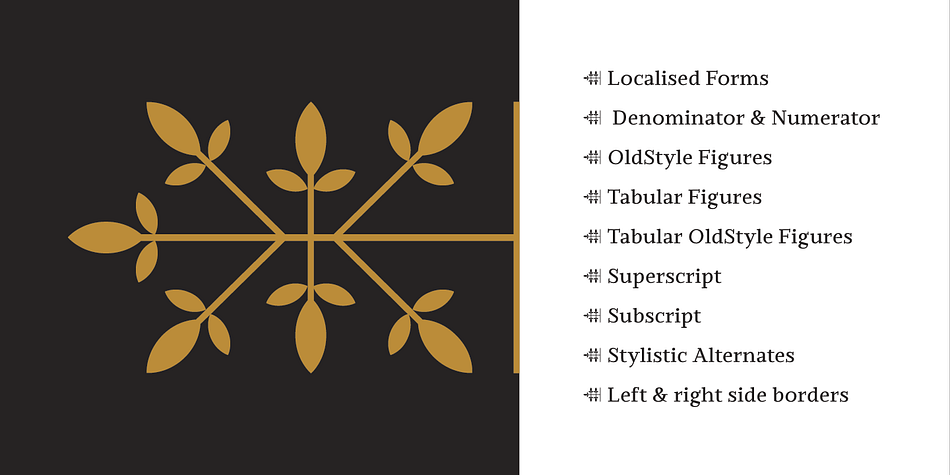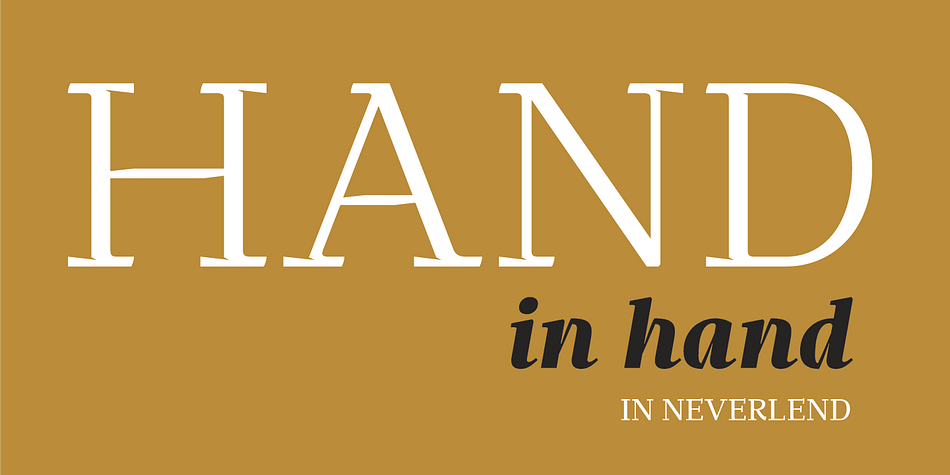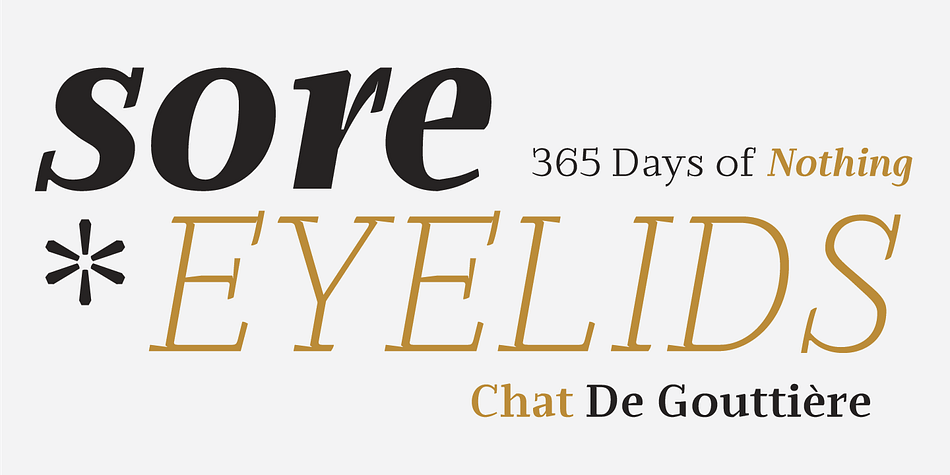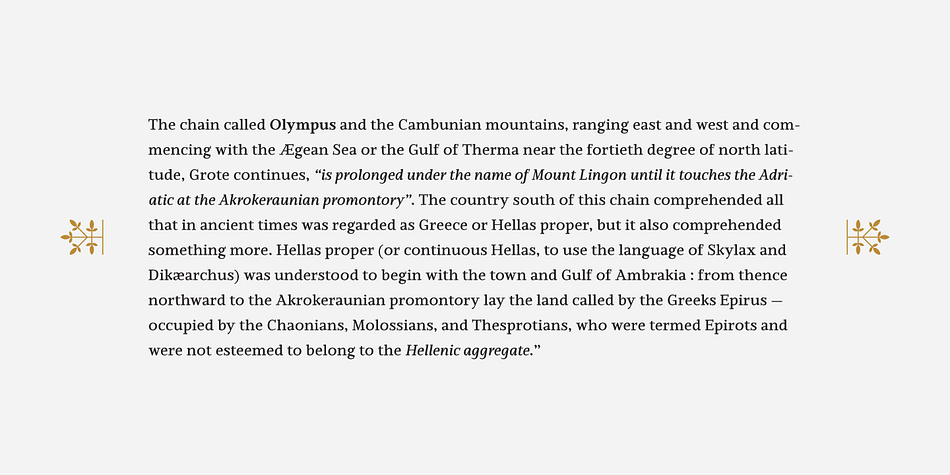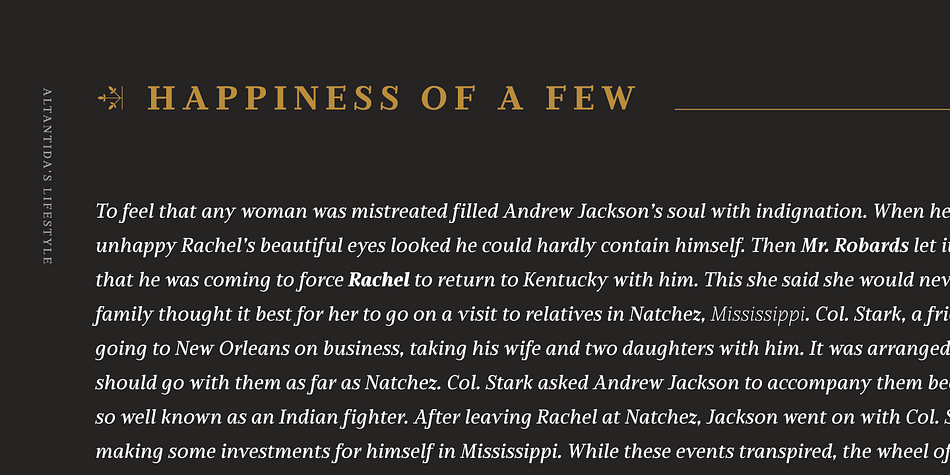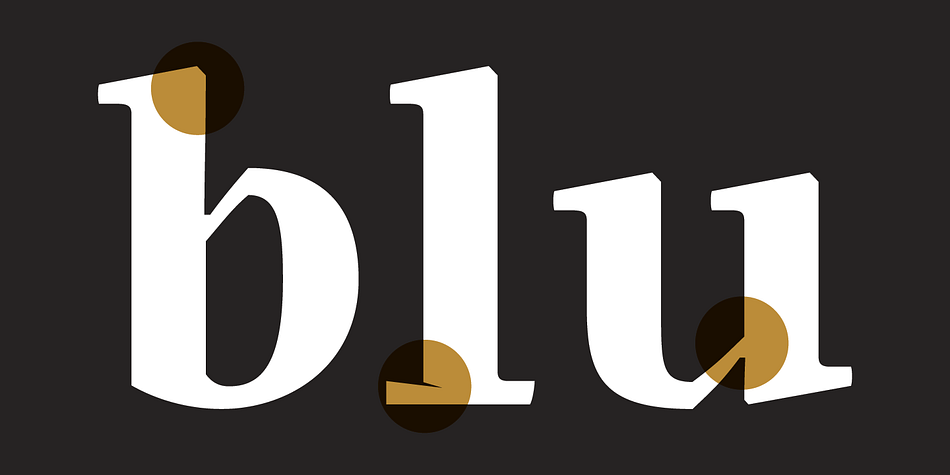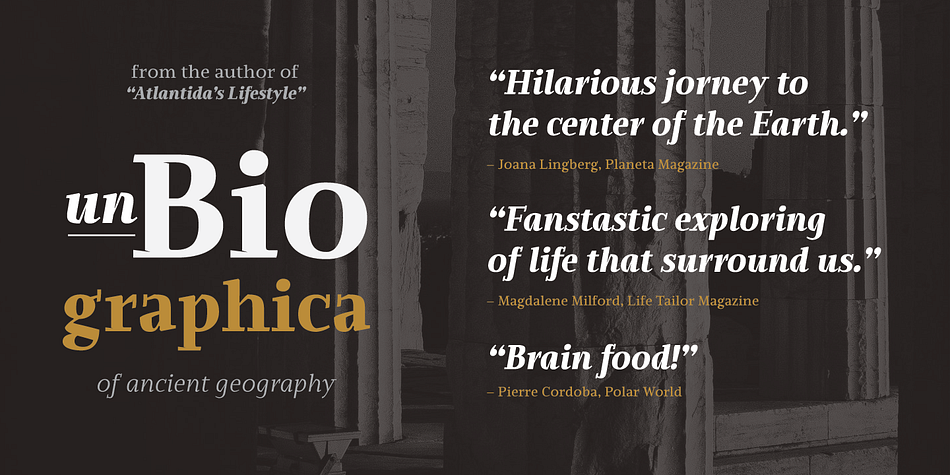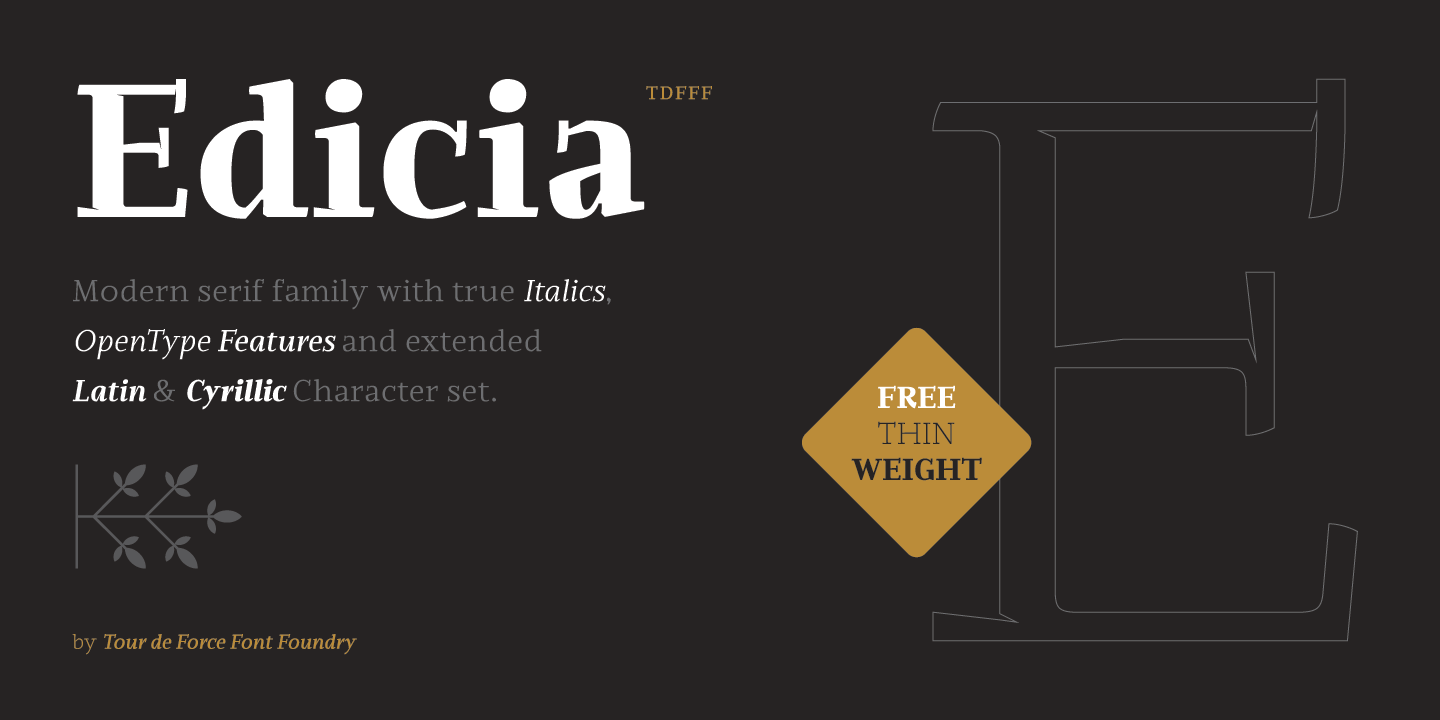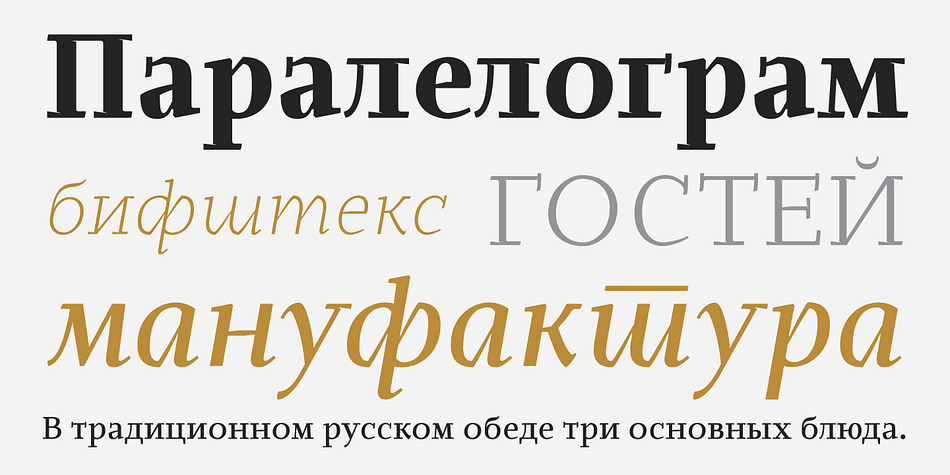
Designed by Dusan Jelesijevic, Edicia is a display serif and serif font family. This typeface has ten styles and was published by Tour de Force Font Foundry.
Edicia is modern serif family with 5 weights and matching Italics. Distinctive and recognizable, Edicia stands out clearly with charming details. Characterized by asymmetric serifs, Edicia is designed with special care for ink-traps. Contains extended Latin and Cyrillic character set equipped with left & right side Borders, Localised Forms, Denominator & Numerator, OldStyle Figures, Tabular OldStyle Figures, Superscript, Subscript, Stylistic Alternates.
Foundry | Tour de Force Font Foundry |
Designer | Dusan Jelesijevic |